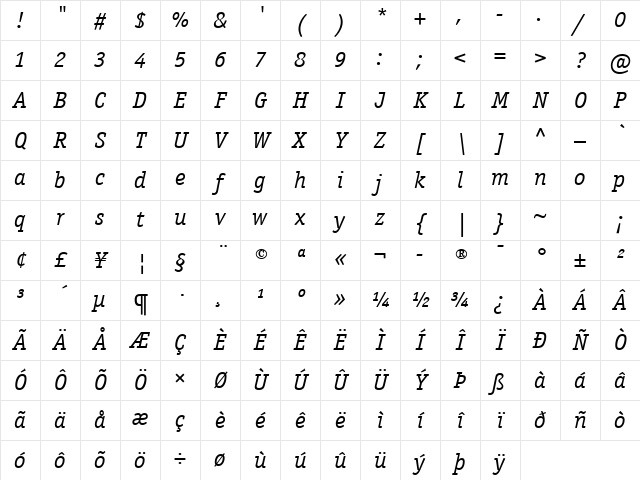
ITCOfficinaSerif LT Book Italic
Design Context for ITCOfficinaSerif LT Book
ITCOfficinaSerif LT Book carries the refined structure of traditional serif typography, with bracketed terminals and considered proportions that communicate credibility and craft. The slanted form adds forward momentum and visual energy. Its slender proportions lend an understated elegance to any composition.